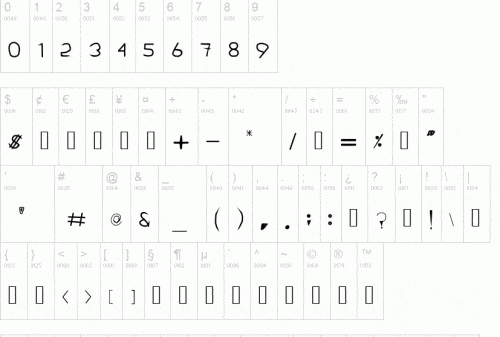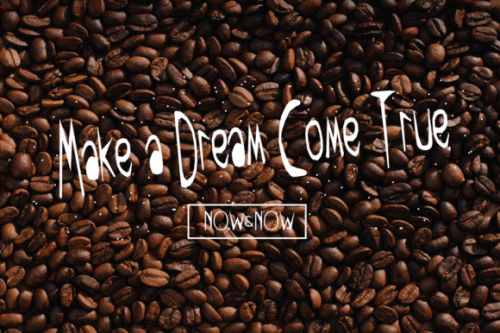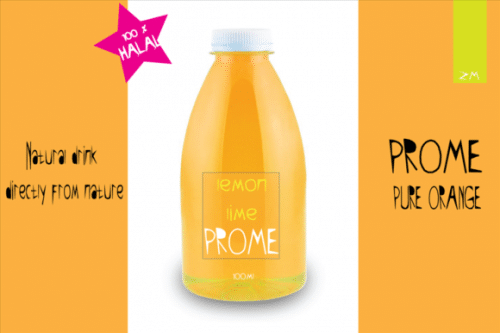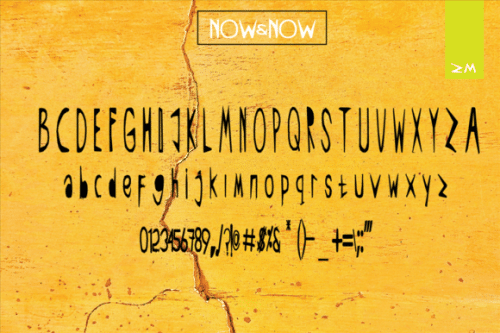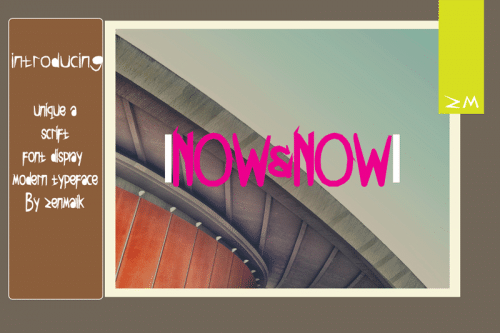
Now & Now is an incredibly unique and interesting display font. It is ideal for each of your children designs, school projects or even for your spooky October ideas.
- Designer: zenmalikstudio